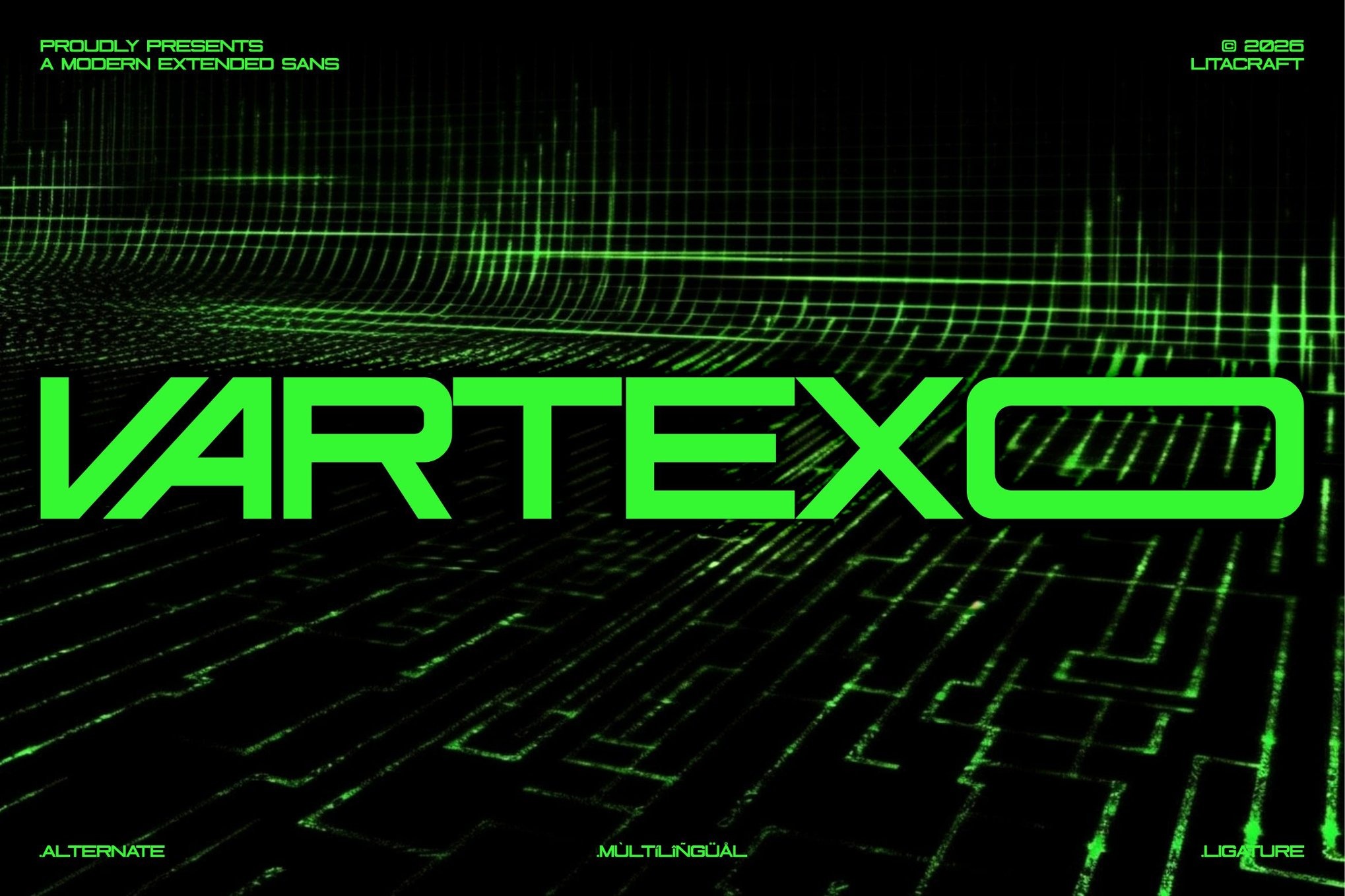
Vartexo – Modern Techno Font
Vartexo – Modern Techno Font is a premium-quality font developed to enhance your work with a polished, modern, and visually elevated look. Vartexo, a futuristic high-contrast display typeface designed for the next era of digital branding. Born from the intersection of cyberpunk aesthetics and industrial precision, Vartexo delivers a sharp, wide-profile look that commands attention instantly.
Whether you are designing a high-octane racing game, a sleek tech interface, or cinematic movie titles, Vartexo provides the perfect balance of readability and aggressive futuristic style. Its bold weight and unique glyph structures make it ideal for headlines that need to feel “hard-wired” into the system.